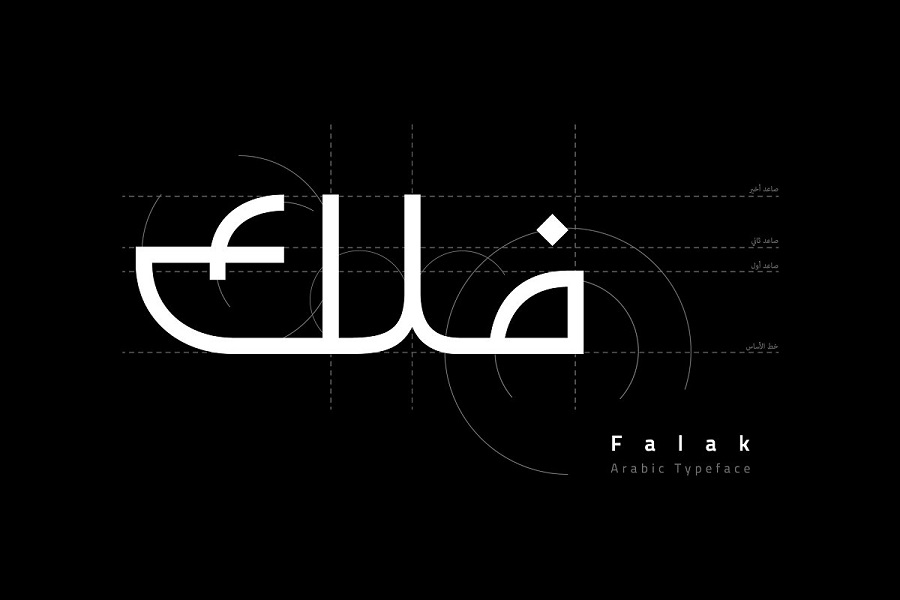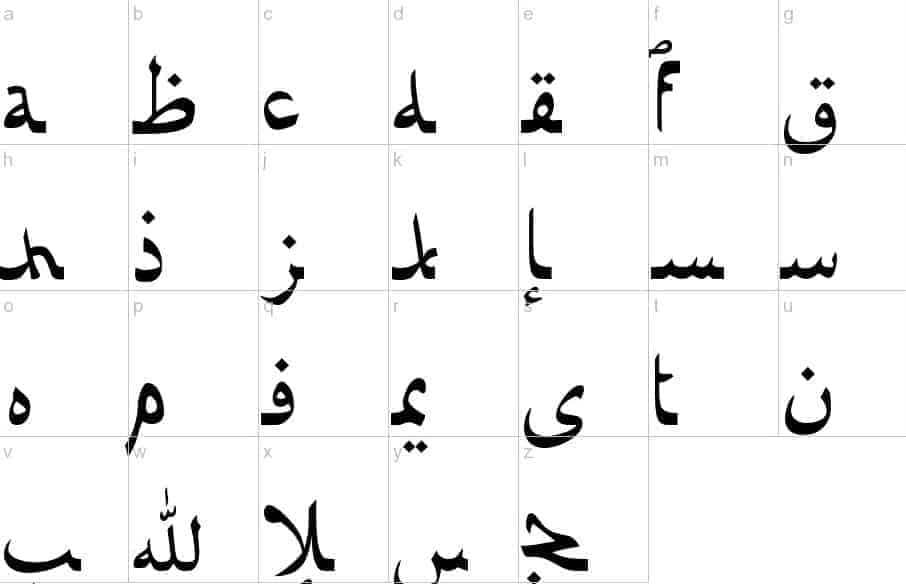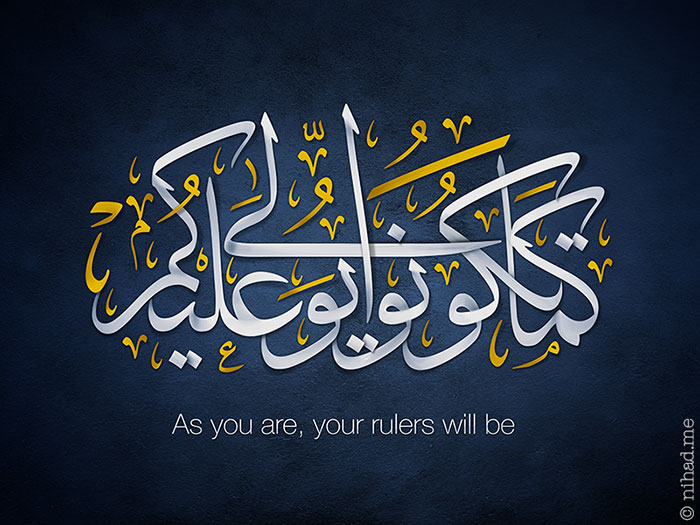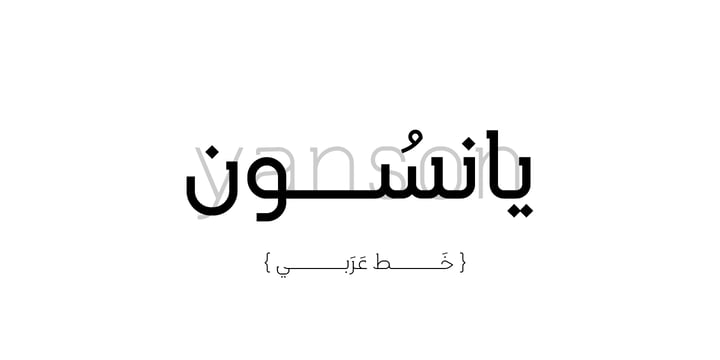
Arabic calligraphy fonts generator. 15 Free Arabic Calligraphy Fonts. Be that as it may either western calligraphy or Chinese or Arabic calligraphy they have exacting standards and shapes with a mathematical request of coating on the page each character with an exact stroke request. Best Arabic Fonts FREE - Arabic Font Generator - FontGet.
We provide you a preview of each arabic calligraphy font online. Kaleam platform employs the unique Digital Arabic calligraphy technology that mimics in flexibility professional calligraphers handwriting when creating glyphs in a way that glorifies and brings out the beauty of the Arabic font. To download free calligraphy fonts you can take a look at our free fonts.
Thuluth Ijazah Diwani Jali Shikasta Naskh Diwani Nastaliq Ruqah. With a traditional character our arabic fonts give your text a very original style. Write arabic calligraphy names and design islamic art with typography.
Arabic and Arab-culture fonts. Fonts are the essential part of any typography web design brochure typography design poster or a personal design project. If you choose to use a border the image will be resized to fit within it.
However either western calligraphy or Chinese or Arabic calligraphy they have strict rules and shapes with a geometrical order of lining on the page each character with a precise stroke order. The font is customizable and you can work with it in Adobe Photoshop. Convert Your Text to 𝕊𝕥𝕪𝕝𝕚𝕤𝕙 𝕋𝕖𝕩𝕥.
Kaligrafi Pembuat Font Arab Tujuh Brilian Cara Untuk. For different scripts for example Chinese or Arabic they have developed their own way of calligraphy. The words written are in blue and yellow color.
Please choose a font for your art. 02 The design of Kaleam font. We are a unique design studio and we specialize in custom traditional Arabic calligraphy in Thuluth Persian and Diwani calligraphy scripts.
3 font styles from 1000. Calligraphy fonts resemble elegant handwriting. Learn more about the name Amani and check out how it is written in a beautiful Arabic calligraphic font.